Anyone who’s tried their hand at designing a typeface will know that it’s a wildly difficult process, and to actually come out at the end with something beautiful takes an extreme amount of skill, taste and patience.
Type design isn’t for everyone, but typography is, and nearly every designer works with it every day. This is exactly why Type Release creator Sean Mitchell is here to share with you a list of 40 beautiful typefaces, all of which were released over the past 30 days. These are his findings:
Cultivated Mind: Amour
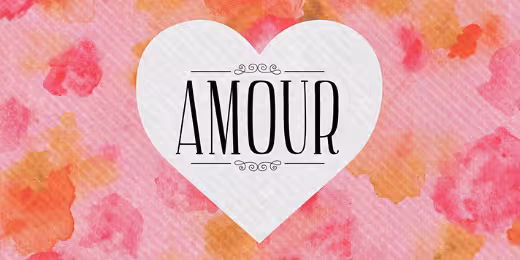
A romantic handwritten retro inspired font.
Sudtipos: Bellissima Script
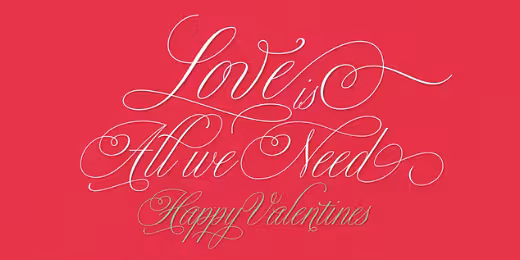
An effusive energy that appeals much beyond its sourcing.
The Northern Block: Neusa
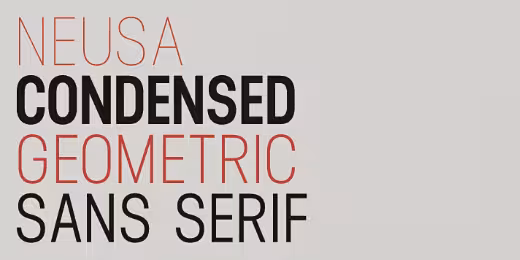
A condensed geometric sans serif inspired by early space explorations including the iconic Life magazine coverage of the 1969 Apollo program.
Emil Kozole: Attitude
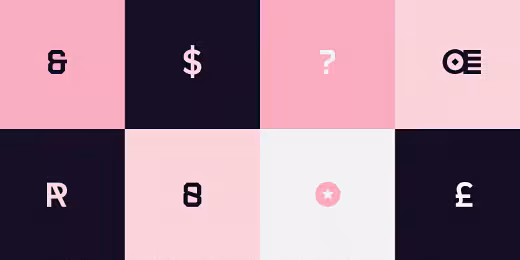
Inspired by Japan pop culture and American hip hop subculture.
Latinotype: Trend
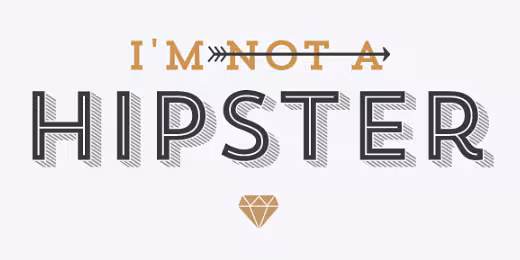
A font made of layers, taking as a basis a sans and a slab font.
Blake E. Marquis: York
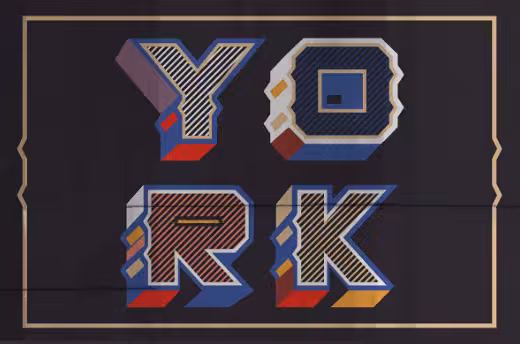
Derived out of a graphic style using heavy shading and depth.
La Goupil: Insolente
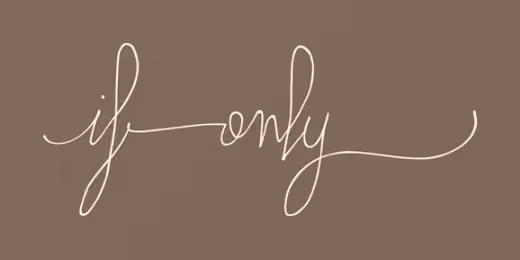
A versatile and realistic human script.
Jessica Hische: Minot
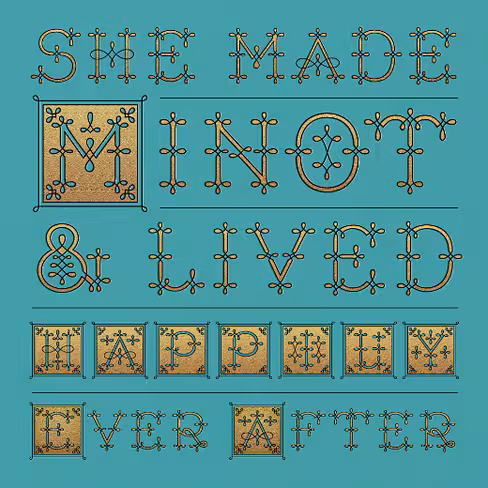
Comes in three styles, outline, fill, and box. Meant to be used together to create multi–color headlines.
HVD Fonts: Brandon Text
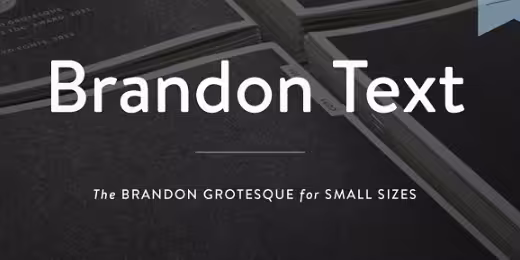
The companion of the famous Brandon Grotesque type family. It has a higher x–height than the Grotesque version and is optimized for long texts, small sizes and screens.
Letters from Sweden: Kumla
Kumla is Letters from Sweden’s first release in the “Fabrik Suite” — a project inspired by Swedish industry, factories and harbors.
Los Andes: Moderna
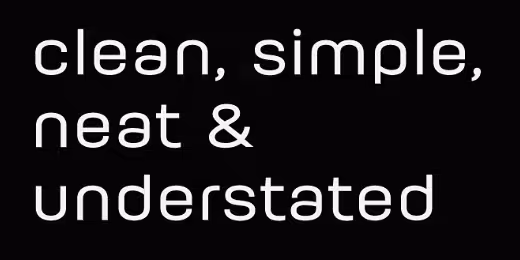
A modern sans serif, simple and neutral.
Onrepeat: Port
An experimental Didone typeface with a modern twist.
A2-Type: Regular
Suggests a Modernist approach to design, but is open for interpretation.
Ahmet Altun: Halis Rounded
Soft and eye-pleasing even though it has geometric and straight borders.
Insigne: Steagal
Softened edges, which simulate brush strokes and retain the feeling of the human hand.
Grilli Type: GT Pressura
Inspired by type stamped on shipping boxes, GT Pressura uses the visual effect of ink spreading under pressure as a stylistic device.
Matthew Butterick: Concourse
The superbly satisfying sans serif.
Eurotypo: Fiesole
Inspired by calligraphic models, a bookface font family to be used for text, display and caption.
Ryan vs. Clark: Liberator
From a bygone era, when our grandparents fought for the freedom we enjoy today. It’s bomber–inspired face provides a masculine punch to any project or design.
Hoftype: Capita
Strong in appearance, with controlled motion of the contour, vivid and warm, with gentle flow — it avoids any harshness of many slab serifs.
Just Another Foundry: JAF Domus Titling
A rounded typeface with classical Roman proportions. It is unique in that it was designed as an all–caps sans from the beginning.
Alan Dague-Greene: Courier Prime
A Courier made for screenplays. It’s Courier, just better.
Blue Vinyl: Barmbrack
Inspired by decorative Victorian showcard lettering.
Moretype: Varly